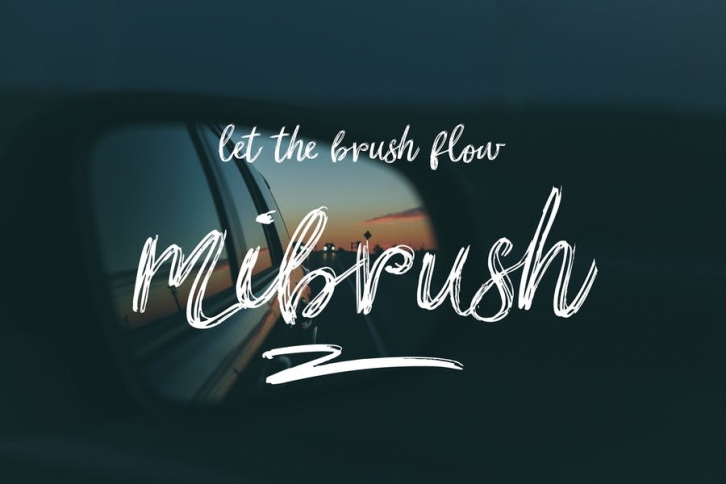
mibrush is new and fresh script font which let your brush flow.... handmade and crafted with great care to connect all the letters where possible to make this unique font.
mibrush ornaments
mibrush thin
mibrush regular
You can use ornaments and swashes to combine with the letters to give initial and final letter great look,